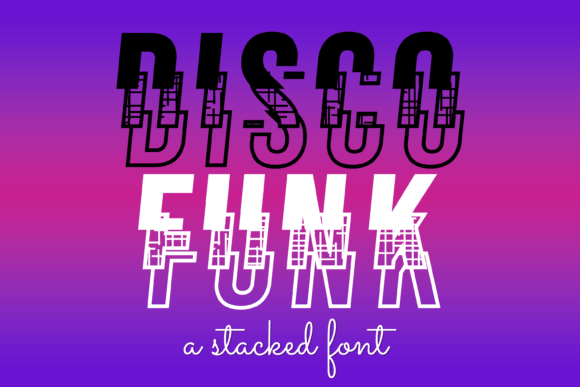
Step into a realm of funky typography with Disco Funk Font, a display font that exudes vibrancy and rhythm. Crafted by WADLEN, this font is a masterpiece designed to ignite your creativity.
From custom designs to dazzling DIY projects, Disco Funk Font adds an irresistible groove to every creation. Its unique character dances across your designs, leaving an indelible mark of retro charm and modern flair. With its smooth curves and playful accents, this font embodies the spirit of the carefree disco era.
Unleash your inner groove and let Disco Funk Font lead you on an unforgettable typographic adventure. Whether you're a seasoned designer or a curious beginner, this font will set your imagination alight. Its versatility knows no bounds, making it the perfect choice for logos, posters, social media graphics, and anything that calls for a touch of funky flair.
Immerse yourself in the world of Disco Funk Font and experience the transformative power of typography. Let its infectious rhythm infuse your designs with a vibrancy that will make your creations stand out from the crowd. Download Disco Funk Font today and let the funk flow!